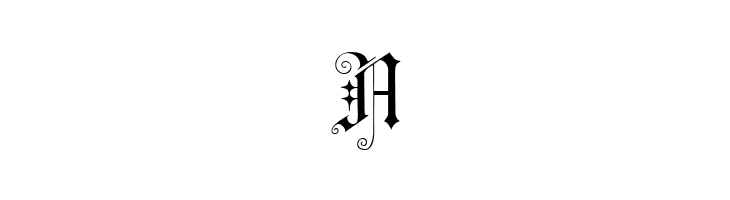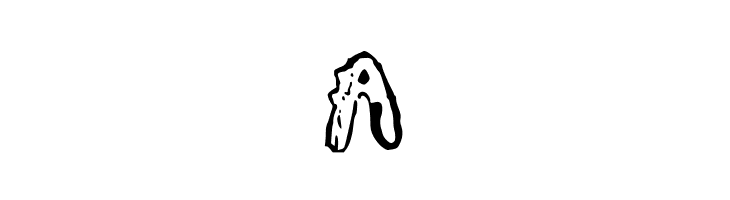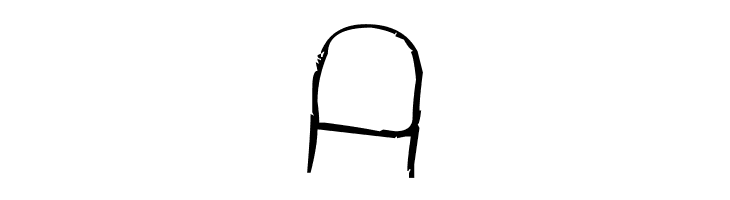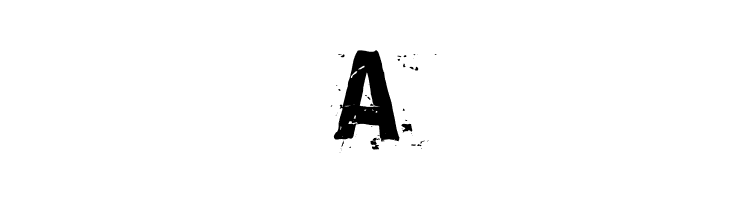
A whimsical, cat-themed decorative font with 3D effects.
A decorative blackletter font with intricate flourishes and bold strokes.
An ornate blackletter font with intricate details and a Gothic style.
A playful font with bold, rounded letters filled with cat and dog silhouettes.
A playful, bold font with rounded edges and uniform strokes.
A whimsical, medieval-inspired decorative font with unique curves and flourishes.
A whimsical and artistic font with decorative elements and varying stroke widths.
A playful, bold font with a whimsical, cartoonish style.
A playful, handwritten-style font with bold strokes and dynamic slant.
A playful font featuring cat silhouettes integrated into each character.
A classic blackletter font with ornate, medieval-inspired letterforms.
A classic blackletter font with ornate, angular letterforms and a medieval aesthetic.
A bold blackletter font with sharp, angular lines and high contrast strokes.
A bold, blackletter-inspired font with sharp, angular lines and a medieval aesthetic.
A traditional blackletter font with intricate, ornate letterforms and a gothic aesthetic.
A traditional Blackletter font with intricate, angular strokes and a gothic appearance.
A geometric symbol font featuring directional arrows and basic icons.
A whimsical font with cat face motifs and a playful, hand-drawn style.
A modern, geometric sans-serif font with excellent legibility and versatility.
A bold, angular font with sharp, jagged lines and a dynamic, edgy appearance.
A display font made up of cat silhouette illustrations.
A dot matrix style font with a digital, retro aesthetic.
A geometric, abstract font with sharp angles and a futuristic look.
A playful, casual handwritten font with smooth, flowing lines and a friendly vibe.
An elegant, flowing script font with delicate, cursive strokes and high contrast.
An elegant script font with flowing, cursive letterforms and high contrast strokes.